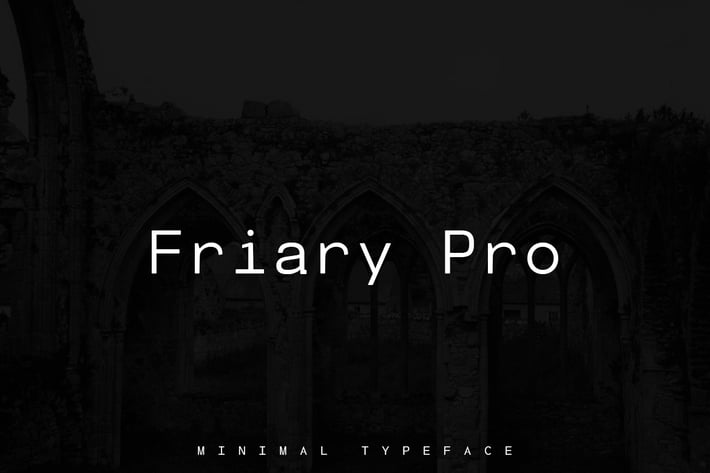
Friary Pro Typeface + Web Fonts
Friary Pro Sans Minimal Typeface
Friary Pro is a modern and Minimal Sans Serif typeface, Friary Pro can keep the minimalism at its level best and is a Perfect choice for, Typewriter, headlines, paragraph, subheading, notes, Big Banners. Classic & Decorative Typography Designs.
Font Designed and Crafted by Manuel (Old Font Factory 2009 ), Distributed by Webhance Studio.